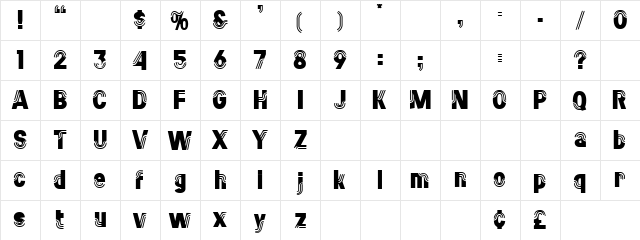
Simon Normal
Design Context for Simon Typeface
Simon is a composed and adaptable typeface that performs quietly and consistently across a wide range of design contexts.